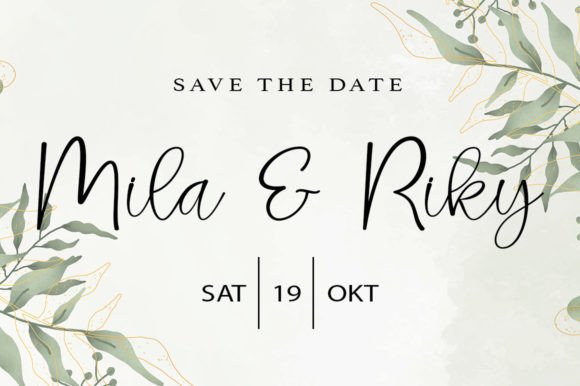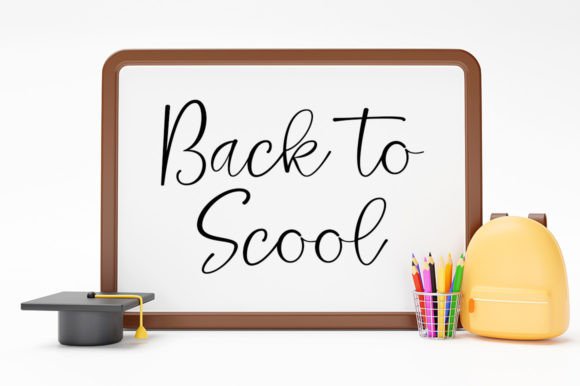
About Salsabila Font
Salsabila is a lovely and delicate script font that exudes elegance and class. This font was particularly crafted for those who need a beautiful and refreshing look to their designs.